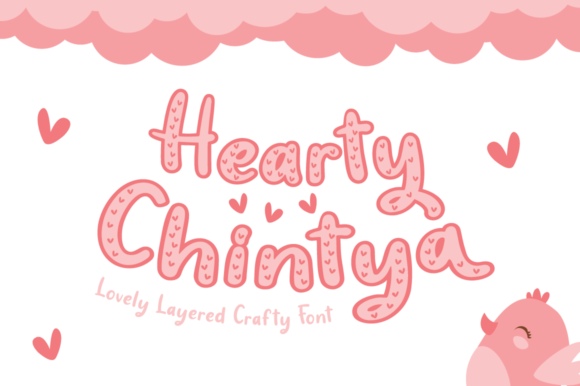
Prepare to be swept off your feet by Hearty Chintya, an enchanting decorative font that will ignite your creativity and leave you craving for more. This captivating font is the epitome of elegance, adding a touch of whimsy and timeless charm to any design it graces.
Indulge in the allure of Hearty Chintya's captivating curves, its delicate flourishes, and its irresistible personality. This font is meticulously crafted to evoke emotions and add a touch of magic to any project. Let your imagination soar as you explore its endless possibilities, from crafting unforgettable logos to creating breathtaking invitations.
With Hearty Chintya at your fingertips, you'll effortlessly elevate your designs to new heights. Its versatility knows no bounds, making it the perfect choice for a myriad of projects. Whether you're a seasoned designer or just starting your creative journey, this font will effortlessly elevate your creations.
Join the countless designers who have fallen head over heels for Hearty Chintya's captivating allure. Its ability to transform ordinary designs into extraordinary works of art is truly unmatched. Experience the magic of this extraordinary font today and let your imagination run wild!